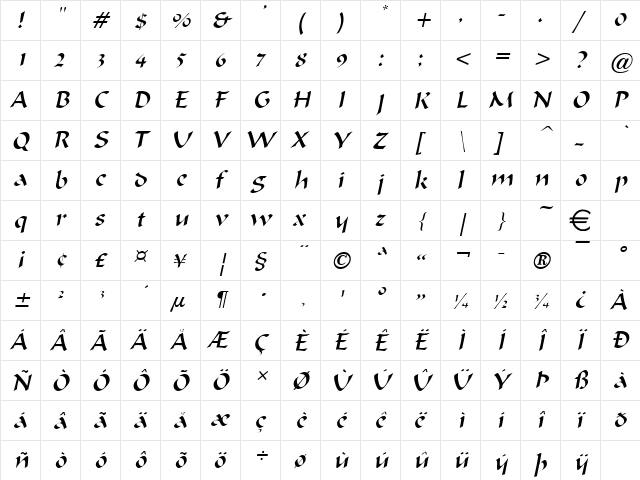
MarlinThin Italic
Design Context for MarlinThin Typeface
MarlinThin takes a measured approach to typography — its balanced proportions and neutral character make it a reliable workhorse for both digital and print work. Its italic angle brings a sense of urgency and motion to the letterforms. Its slender proportions lend an understated elegance to any composition.
Pro Tip: Try MarlinThin for annotation and caption copy alongside an upright companion — the contrast in angle creates a dynamic but ordered typographic system.